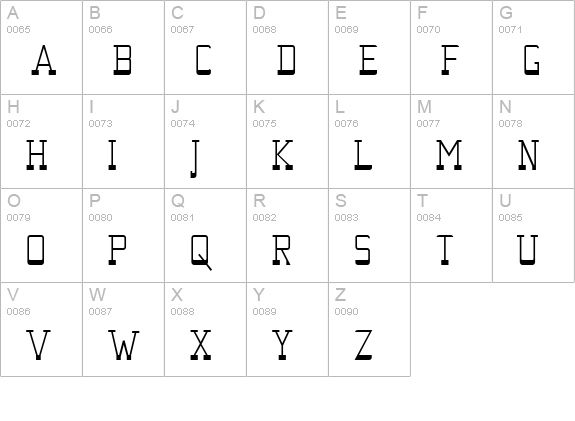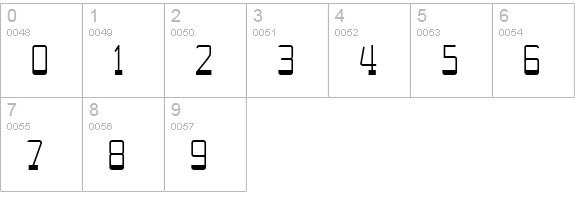
Kwodsity Font Details
Kwodsity font is a modern and stylish typeface that exudes elegance and sophistication. With its unique blend of sharp edges and smooth curves, Kwodsity font is perfect for adding a touch of class to any design project. Whether you're creating a logo, website, or printed materials, this versatile font will make your text stand out. The best part? Kwodsity font is completely free to download at FontsMarket.com. This means you can easily access this premium font without spending a dime. So why wait? Elevate your designs with Kwodsity font today and make a lasting impression on your audience.